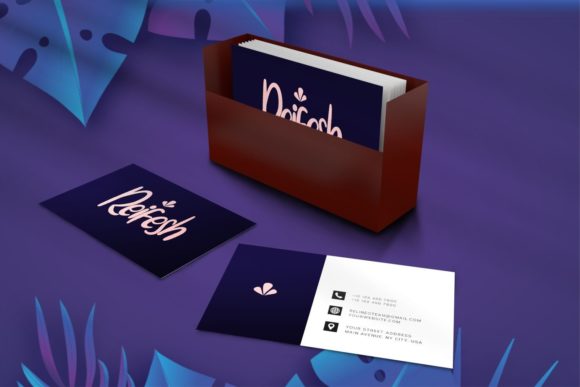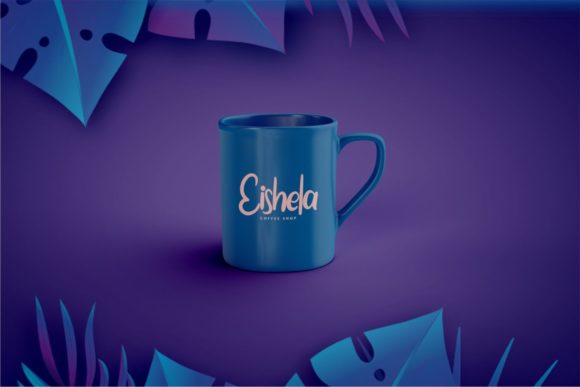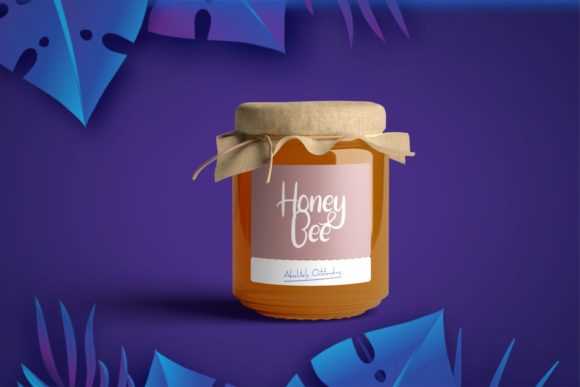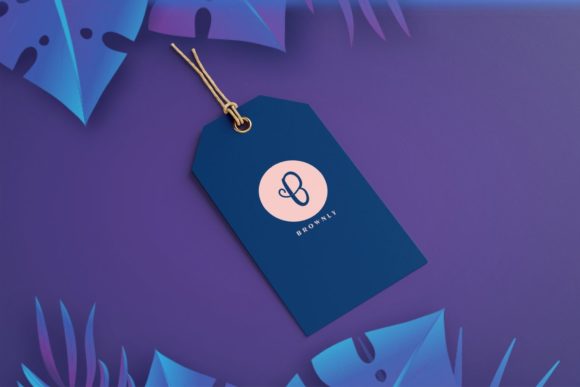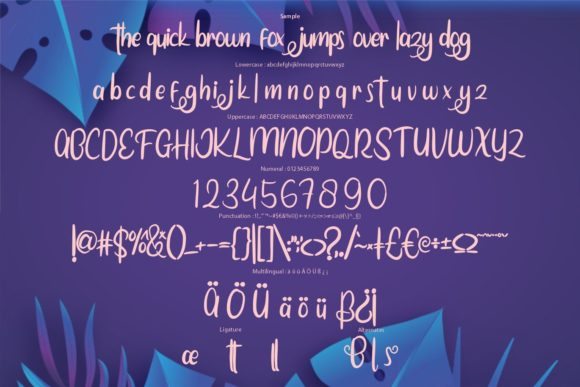
Discover the Elegance of Balikes Font: A Timeless Choice for Designers and Crafters
Are you on the hunt for a font that exudes elegance and sophistication? Look no further than the Balikes Font. This stunning, flowing handwritten font is described by its elegant touch, making it perfect for your favorite projects. With its incredibly distinct and timeless style, Balikes Font is sure to capture your heart and inspire your creativity.
What Makes Balikes Font So Special?
Balikes Font boasts a unique, handcrafted design that sets it apart from other fonts. Its elegant touch is evident in every curve and line, giving it a sophisticated and refined feel. This font is perfect for designers and crafters who want to add a touch of luxury to their projects. Whether you’re working on a branding campaign, a wedding invitation, or a craft project, Balikes Font is sure to make a lasting impression.
Key Features of Balikes Font
- Flowing Handwritten Style: Balikes Font features a beautiful, flowing handwritten style that’s perfect for creating elegant and sophisticated designs.
- Elegant Touch: The font’s elegant touch is evident in every curve and line, giving it a refined and luxurious feel.
- Distinct and Timeless Style: Balikes Font has an incredibly distinct and timeless style that’s sure to make your designs stand out.
- Perfect for Various Projects: This font is versatile and can be used for a wide range of projects, from branding and advertising to wedding invitations and craft projects.
How to Use Balikes Font in Your Designs
Using Balikes Font in your designs is easy. Here are a few tips to get you started:
- Pair it with Other Fonts: Balikes Font pairs well with other fonts, especially serif fonts. Try pairing it with a clean sans-serif font for a modern and elegant look.
- Use it for Headings and Titles: Balikes Font is perfect for headings and titles. Its elegant touch and flowing style make it ideal for creating eye-catching headlines.
- Add it to Your Brand Identity: If you’re looking to create a luxurious and sophisticated brand identity, Balikes Font is a great choice. Use it for your logo, website, and marketing materials to create a cohesive and elegant look.
Why Designers and Crafters Love Balikes Font
Designers and crafters love Balikes Font for many reasons. Here are a few:
- Unique and Distinct Style: Balikes Font has a unique and distinct style that’s sure to make your designs stand out.
- Elegant and Sophisticated: The font’s elegant touch and flowing style make it perfect for creating sophisticated and luxurious designs.
- Versatile: Balikes Font is versatile and can be used for a wide range of projects, from branding and advertising to wedding invitations and craft projects.
- Easy to Read: Despite its elegant and flowing style, Balikes Font is easy to read, making it perfect for body text and other applications where readability is important.
In conclusion, Balikes Font is a timeless and elegant font that’s perfect for designers and crafters who want to add a touch of luxury to their projects. With its unique and distinct style, elegant touch, and versatility, Balikes Font is sure to inspire your creativity and help you create spectacular designs. So why wait? Fall in love with Balikes Font today and take your designs to the next level!
Whether you’re a seasoned designer or a crafty DIY enthusiast, Balikes Font is a great addition to your font collection. Its elegance, sophistication, and versatility make it a valuable resource for any project. So go ahead, get creative, and see what amazing designs you can create with Balikes Font!